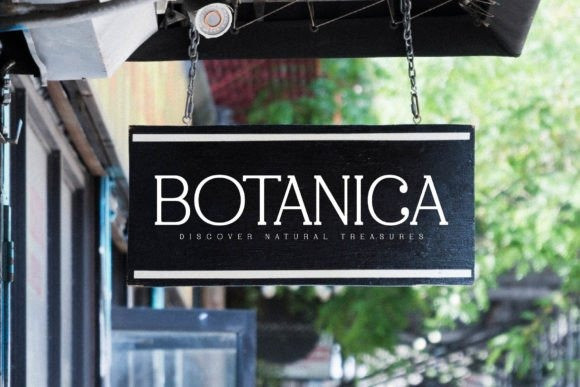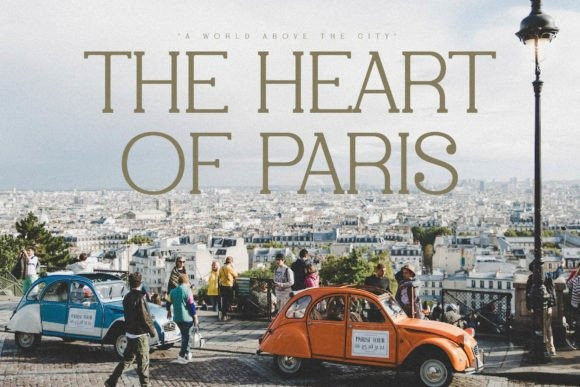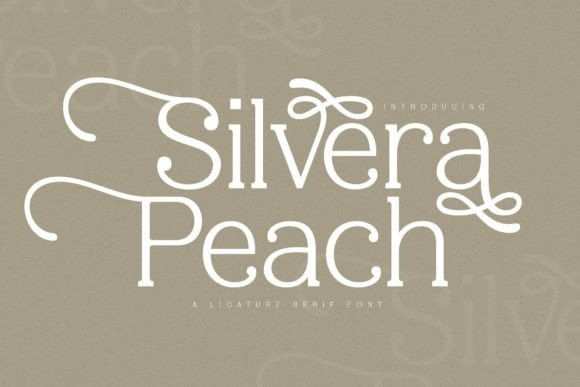
Silvera Peach Font
Silvera Peach Font, created by Storytype, a serif modern and classic typeface that has own unique style & modern look. This typeface is perfect for an elegant & luxury logo, book or movie title design, fashion brand, magazine, clothes, lettering, quotes, and so much more.